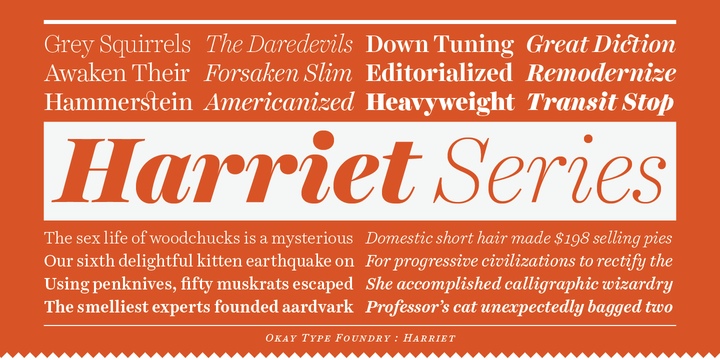
Harriet Font
Harriet Font is perfect for vintage feminine brands, classic literature publications, traditional tea room signage, heritage women's organizations, elegant stationery designs, sophisticated wedding invitations, refined boutique identities, timeless beauty campaigns, distinguished educational materials, and graceful cultural celebrations.
What makes Harriet Font so exciting is its extraordinary ability to embody the grace, intelligence, and quiet strength of classic femininity through letterforms that seem to carry the wisdom and dignity of generations of remarkable women who shaped history through their courage and determination. This distinguished typeface captures the essence of timeless feminine elegance and intellectual sophistication with characters that radiate both gentle refinement and inner strength. The font's classic design elements perfectly balance traditional feminine grace with contemporary professional appeal, creating an indispensable tool that communicates intelligent elegance, cultural sophistication, and enduring feminine strength, making it essential for brands and projects celebrating the timeless qualities of feminine leadership and intellectual grace.
Harriet Font comes in multiple font families including Regular, Bold, Light, Italic, Bold Italic, Classic, Elegant, and Distinguished variations. Each family member maintains the core sophisticated characteristics while offering different refinement levels and stylistic approaches to suit various feminine and heritage design requirements.
The Harriet Font Free Download offers designers and heritage brands an incredible opportunity to incorporate authentic feminine sophistication into projects that celebrate women's contributions to culture, history, and intellectual advancement. This remarkable typeface distinguishes itself through its unique ability to communicate themes of feminine wisdom, intellectual grace, and cultural leadership. Whether you're developing women's heritage organizations, creating educational materials about historical female figures, or designing sophisticated feminine lifestyle brands, this font ensures your message radiates the dignified elegance and intellectual strength that honor the legacy of remarkable women throughout history.
The refined precision in Harriet Font makes it particularly effective for educational institutions and cultural organizations where conveying feminine intellectual authority and sophisticated heritage is crucial for connecting with audiences who appreciate women's historical contributions and contemporary leadership. Its graceful letterforms work beautifully across both traditional print applications and modern digital platforms, maintaining consistent elegant appeal and sophisticated presentation.
Heritage branding professionals appreciate how Harriet Font transforms ordinary communications into elegant tributes to feminine intelligence and cultural contribution. The typeface's sophisticated character set includes special heritage symbols, elegant decorative elements, and refined features that enhance the overall cultured atmosphere of any feminine heritage or educational project.
For creative professionals serving women's organizations, educational institutions, and sophisticated feminine brands, Harriet Font serves as the perfect foundation for establishing memorable visual identities that capture the essential qualities of feminine grace, intellectual strength, and cultural sophistication that define successful brands honoring the enduring legacy of remarkable women and celebrating the timeless qualities of intelligent feminine leadership in contemporary society.